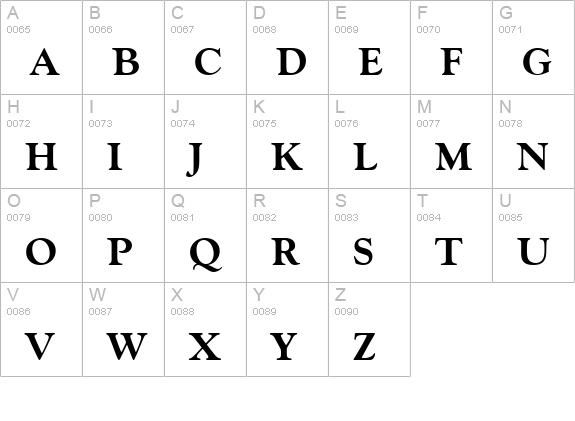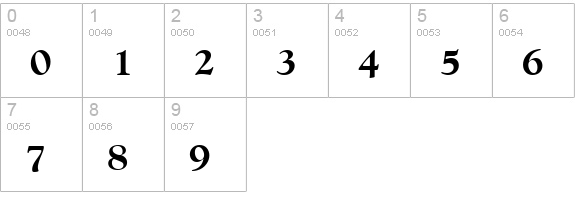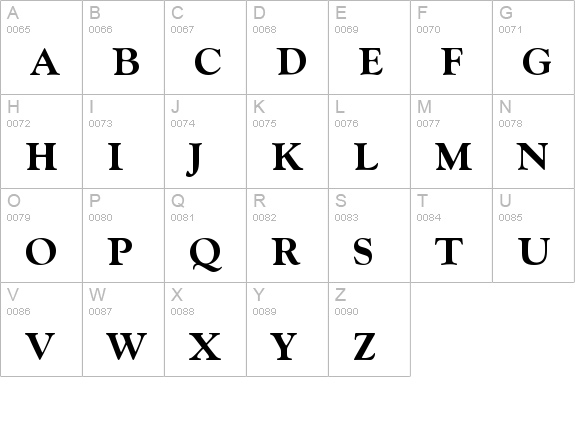
GoudyOldStyTExtBol is a classic and elegant font that exudes sophistication and timelessness. Its bold and distinctive letterforms make it perfect for adding a touch of grandeur to any design project. This font is ideal for headlines, titles, and other display purposes, where its strong presence can truly shine. What sets GoudyOldStyTExtBol apart is not only its timeless appeal but also the fact that it is available for free download at FontsMarket.com. This means that you can easily access and use this exquisite font in your projects without any cost involved. So elevate your designs with the beauty and grace of GoudyOldStyTExtBol, now freely available for you to explore and enjoy.